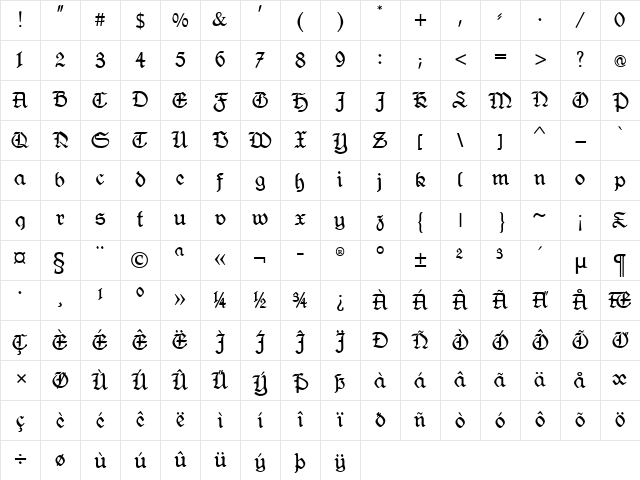
CAT Liebing Gotisch Regular
Design Context for CAT Liebing Gotisch
CAT Liebing Gotisch is a composed and adaptable typeface that performs quietly and consistently across a wide range of design contexts.